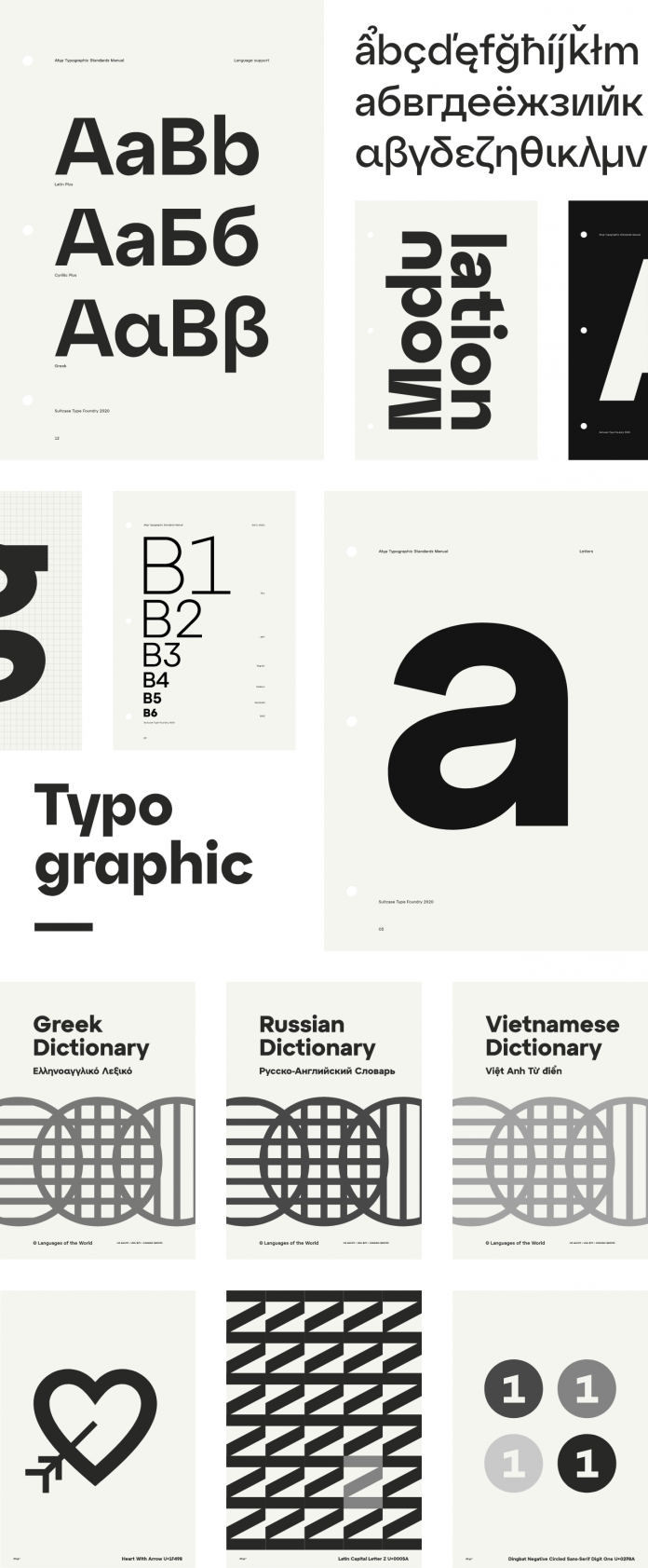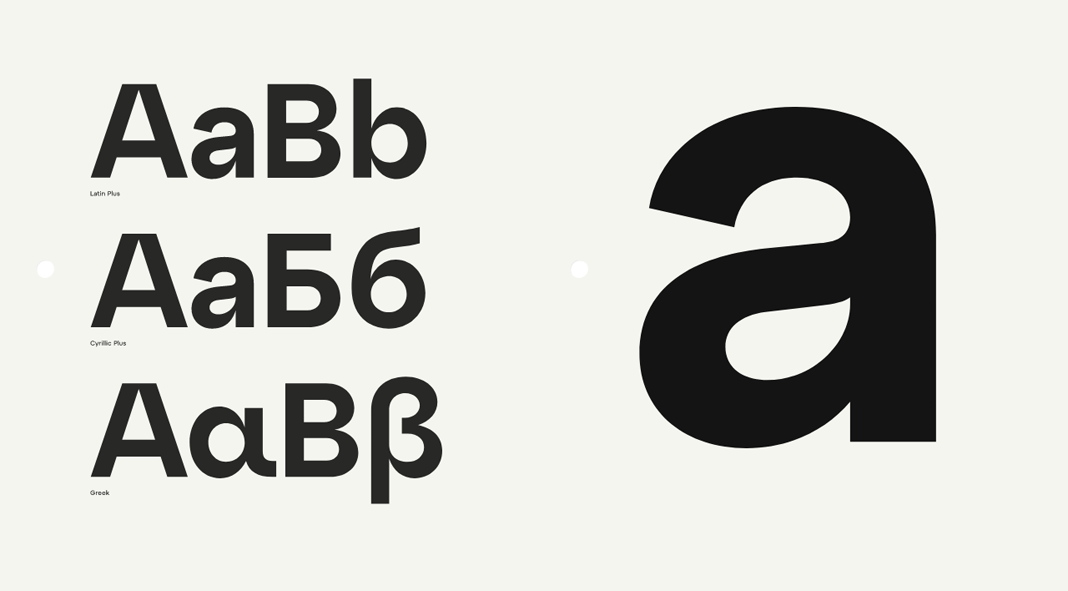
Atyp, a functional, geometric font family from Suitcase Type Foundry.
Designed by Tomáš Brousil of Suitcase Type Foundry, Atyp was created by adapting a typeface originally made for a commercial television station. Its design draws inspiration from geometric constructions of the Bauhaus movement. The subtle details of each character and the microscopic adjustments evoke the illusion of uniformity and mechanical purity. Atyp’s display weight is characterized by the increased contrast of its joints of the bowls and shoulders. This neutral grotesque font family offers excellent readability also on screens of all sizes.